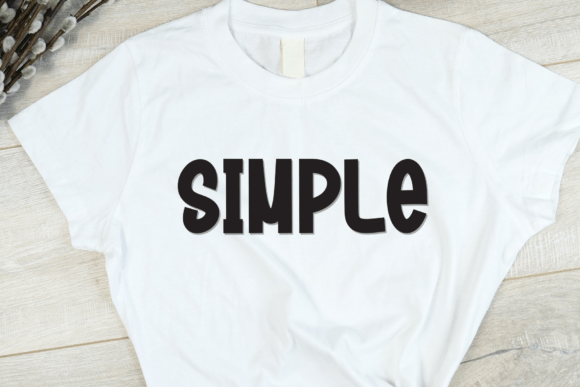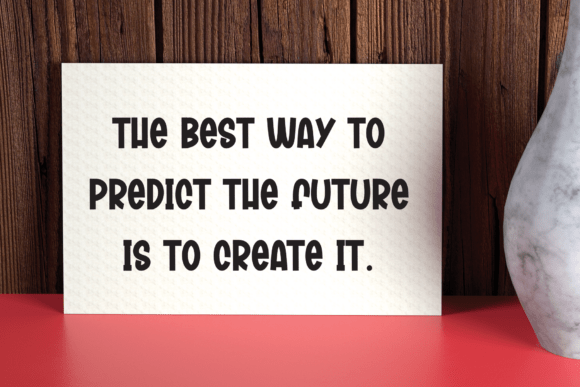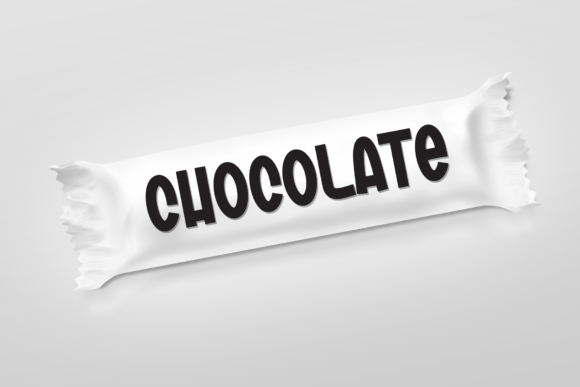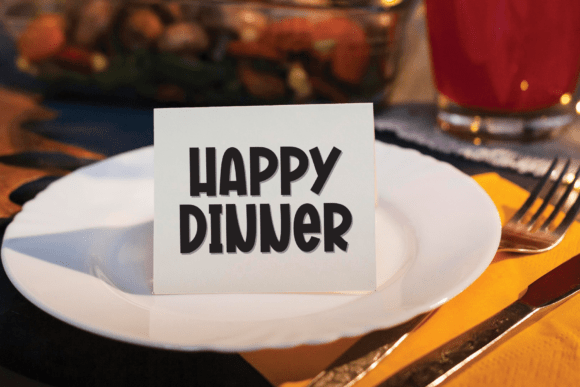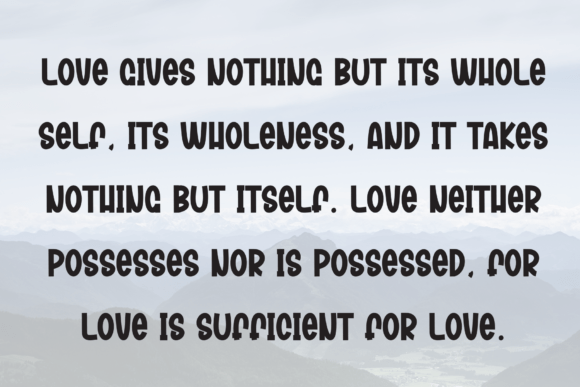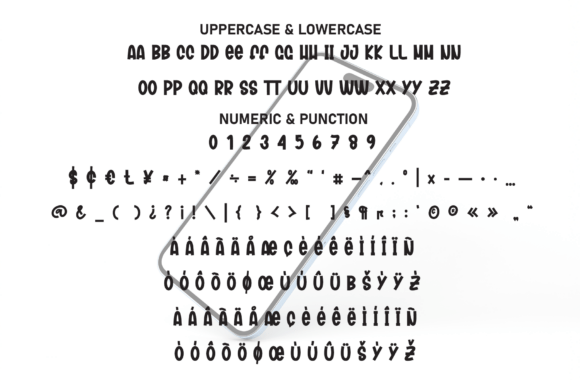
Introduction to Smartphone Font
Welcome to the charming world of this whimsical handwritten display font.
Unleash a dash of sweetness and an air of friendliness with its adorable design, perfect for sparking joy on wedding invitations or adding an enjoyable sprinkle of character to your cards Regardless of your project, this distinctive font is designed to add a playful touch, making every message resonate with a delightful echo.
Smartphone Font offers exceptional quality and versatility, making it a valuable addition to your design toolkit. Whether you’re creating for personal projects or commercial use, Smartphone Font delivers professional results.